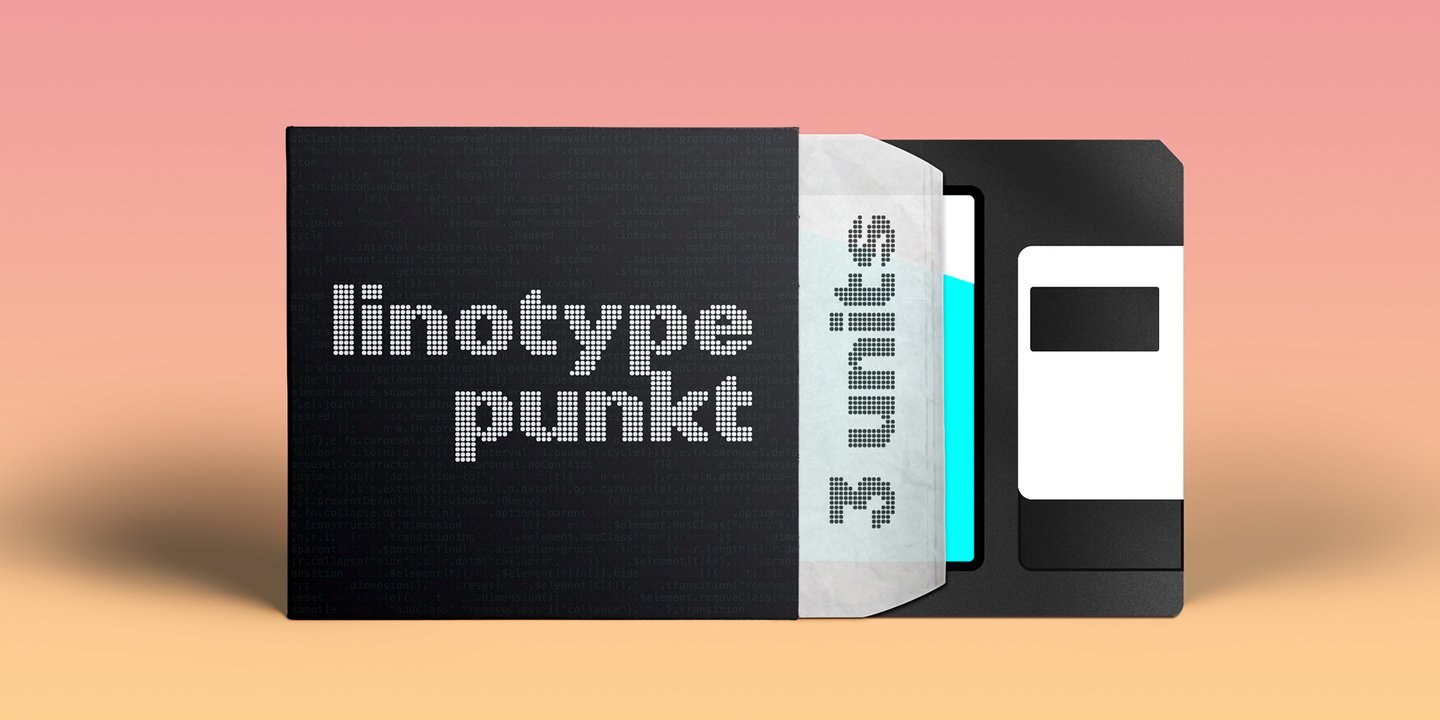
The American designer Mischa Leiner created the font in 1999. Linotype Punkt is part of the Take Type Library, chosen from the entries of the 1999 International Digital Type Design Contest for inclusion on the TakeType 3.1 CD. This font is available in three weights, light, regular and bold. The basic forms are those of a robust sans serif, however the figures are composed of evenly placed dots, hence the name Punkt, the German word for dot. This distinguishing characteristic lets this font look as though it appears on a background of light. One other unique trait of this font is the nature of the three weights. The figures of each weight have exactly the same measurements, the same width, breadth, etc. The only variable measurements are those of the individual dots making up the forms, making the bold weight much darker than the light while retaining the same outer contours. Linotype Punkt should be used in larger point sizes, as when it is too small the dots blur together and rob the font of its ‘light’. The font is therefore best for headlines in large and very large point sizes.